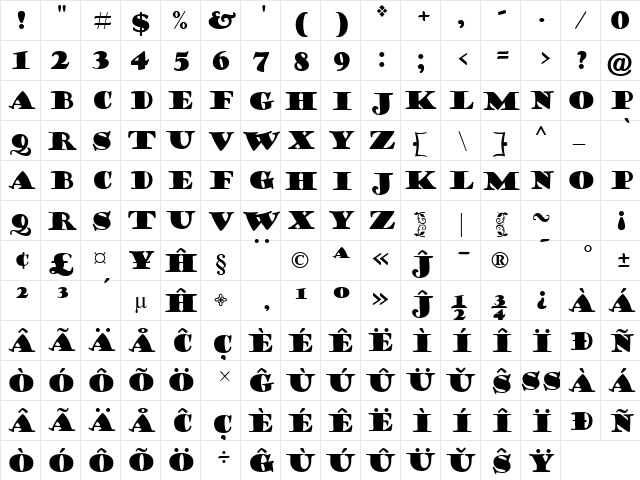
Goudy Stout Eo Regular Font Preview
Goudy Stout Eo Regular
Design Context for Goudy Stout Eo Typeface
Goudy Stout Eo is a composed and adaptable typeface that performs quietly and consistently across a wide range of design contexts.